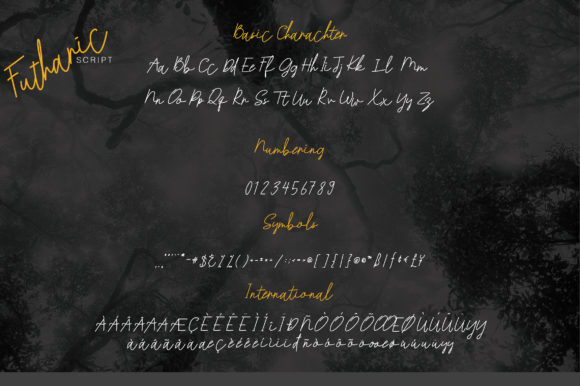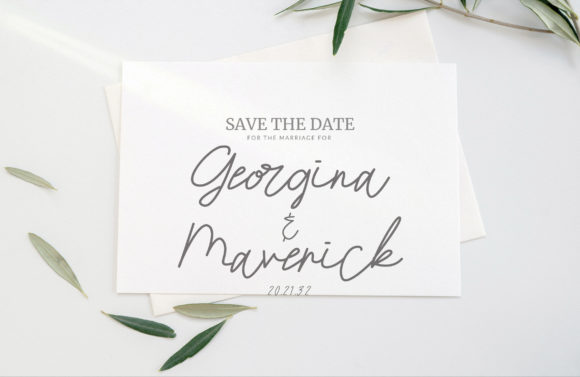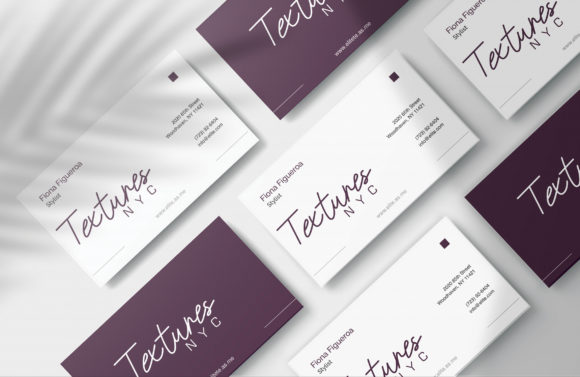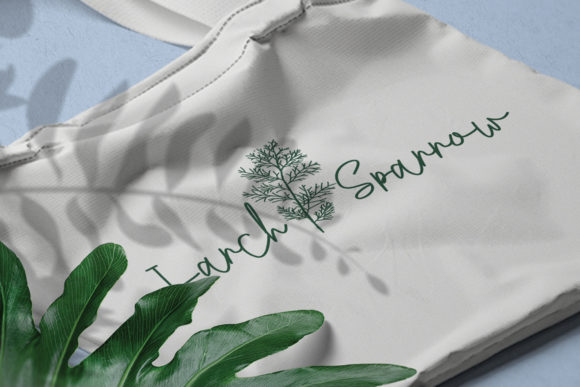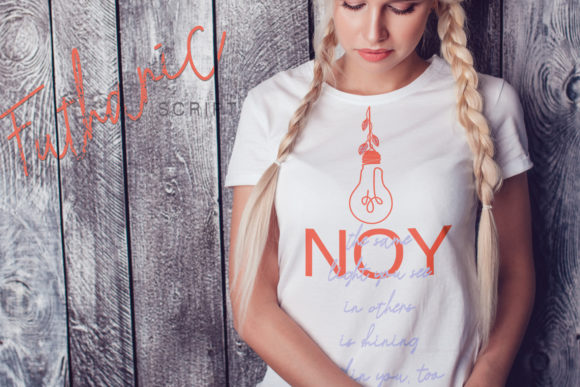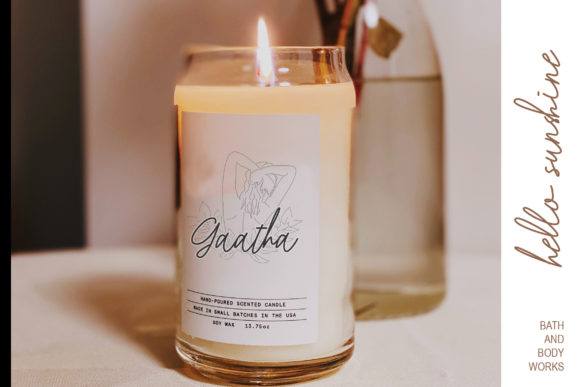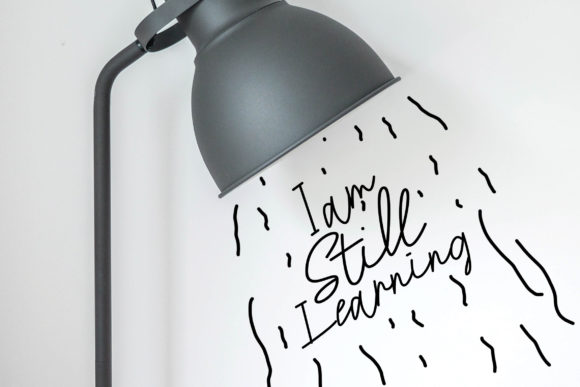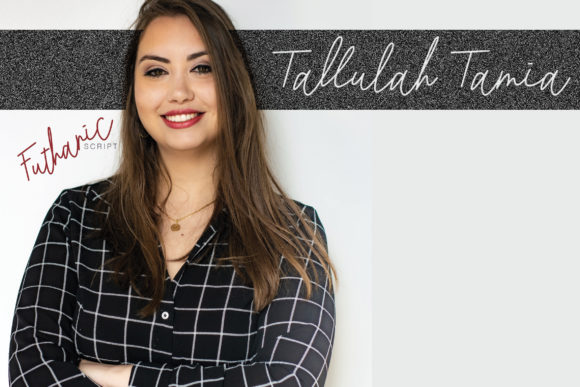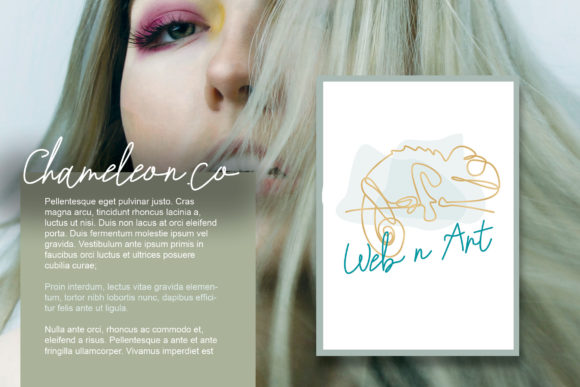
Futharic Font
Futharic is a truly unique handwritten font that offers a wide range of creative possibilities. Whether you’re using it for crafting, digital design, presentations, or greeting card making, this font is a perfect choice to bring your projects to life.
With its distinctive style and artistic flair, Futharic stands out from the crowd and adds a touch of individuality to your designs. Its handwritten appearance gives it a personal and authentic feel, making it ideal for projects that require a personalized touch.
The versatility of Futharic allows it to adapt to various design contexts. Whether you’re creating custom crafts, designing digital graphics, preparing engaging presentations, or crafting heartfelt greeting cards, this font will add a unique and artistic touch to your creations.
Fall in love with Futharic’s incredibly versatile style, which opens up endless possibilities for your designs. Its flowing and organic letterforms, combined with subtle variations in stroke width, create a natural and dynamic look that is visually captivating.
With Futharic, you have the freedom to experiment and explore different design options. Its versatility enables you to use it for both bold and impactful headlines or for adding subtle accents and details to your compositions.
Let Futharic unleash your creativity and allow it to shine in your projects. Its unique style and versatile nature will bring a touch of artistry and originality to your designs, making them stand out and leave a lasting impression on your audience.